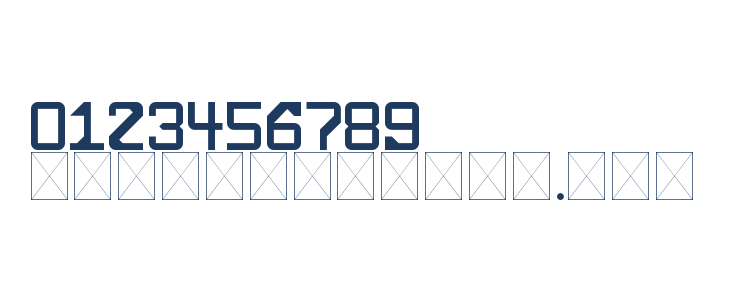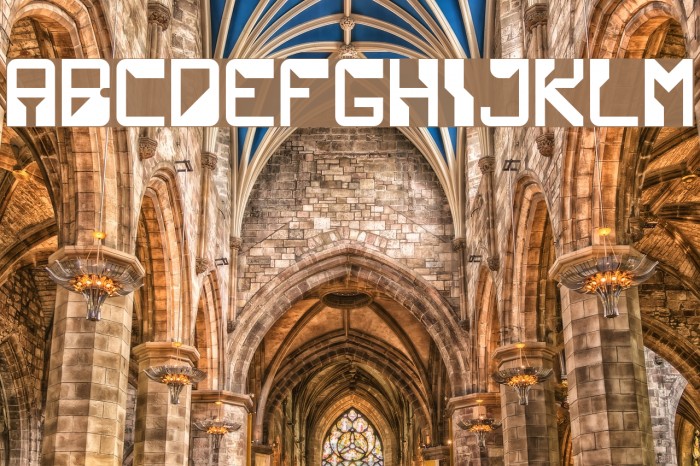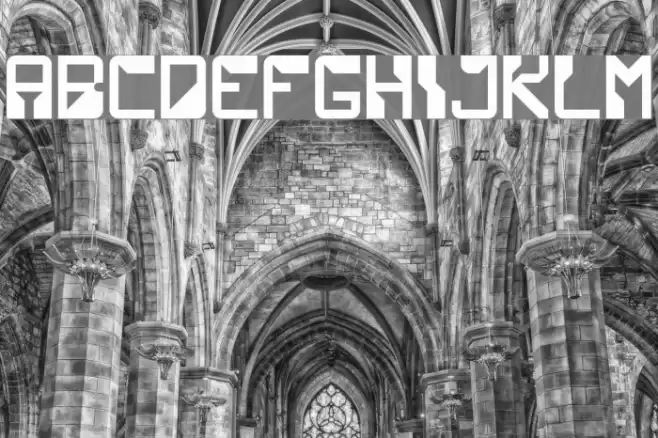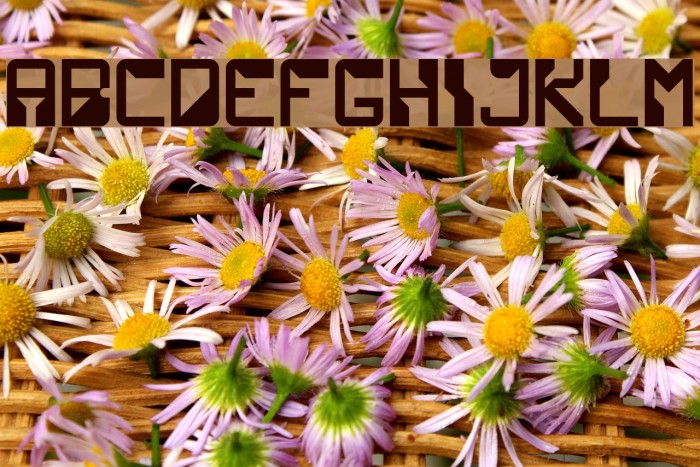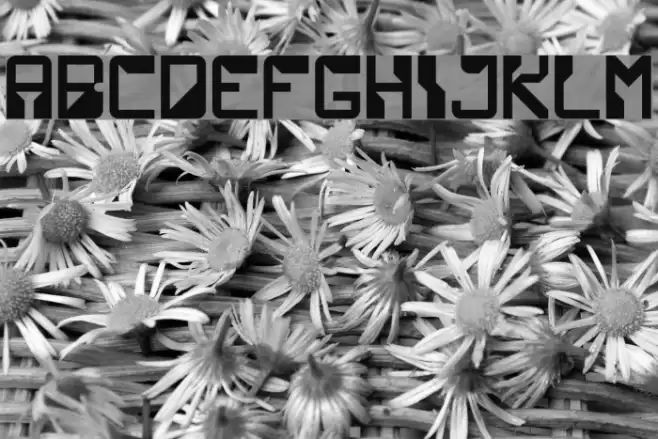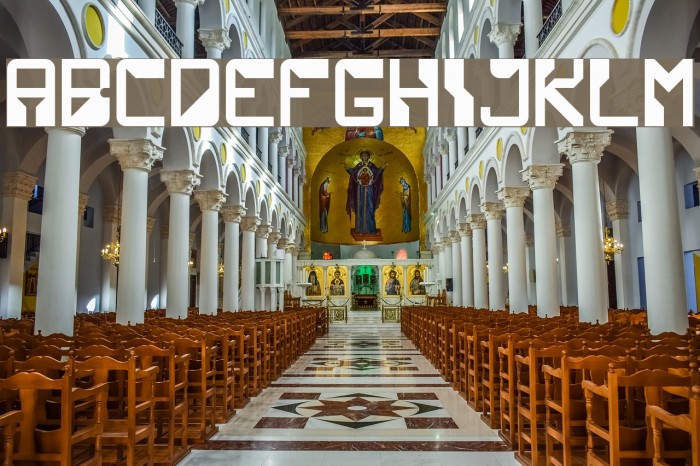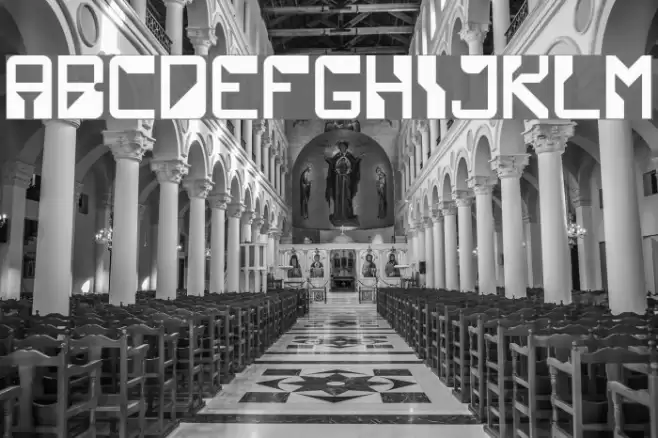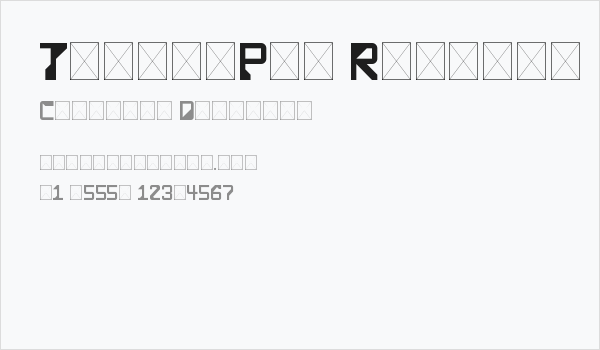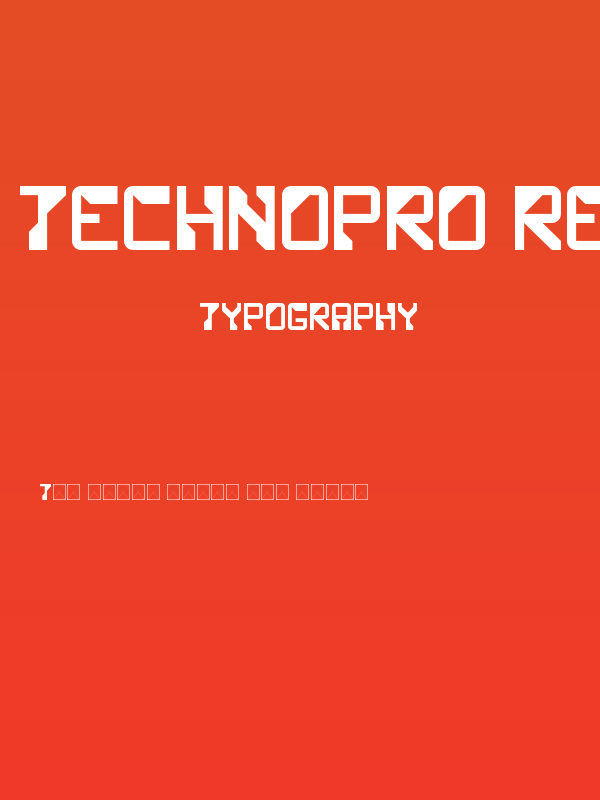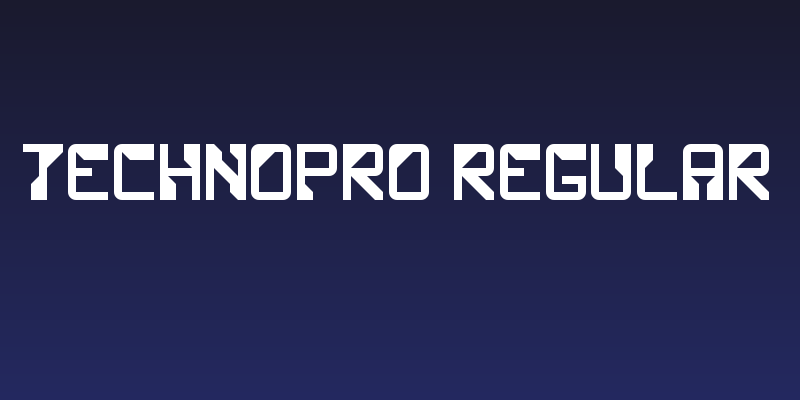
TechnoPro Regular Font
TechnoPro Regular Description
This font features a futuristic and geometric design, characterized by its bold and angular letterforms. The uppercase and lowercase letters share a consistent style, with sharp edges and a blocky appearance that suggests a modern, tech-inspired aesthetic. The numbers follow the same design principles, ensuring uniformity across all characters. The font's unique style is further emphasized by its solid, unbroken lines and the absence of curves, giving it a distinctly digital feel. This makes it particularly suitable for projects that require a contemporary and cutting-edge look.
| Proposed Projects | Ideal for technology branding, digital media, video game interfaces, and sci-fi themed projects. |